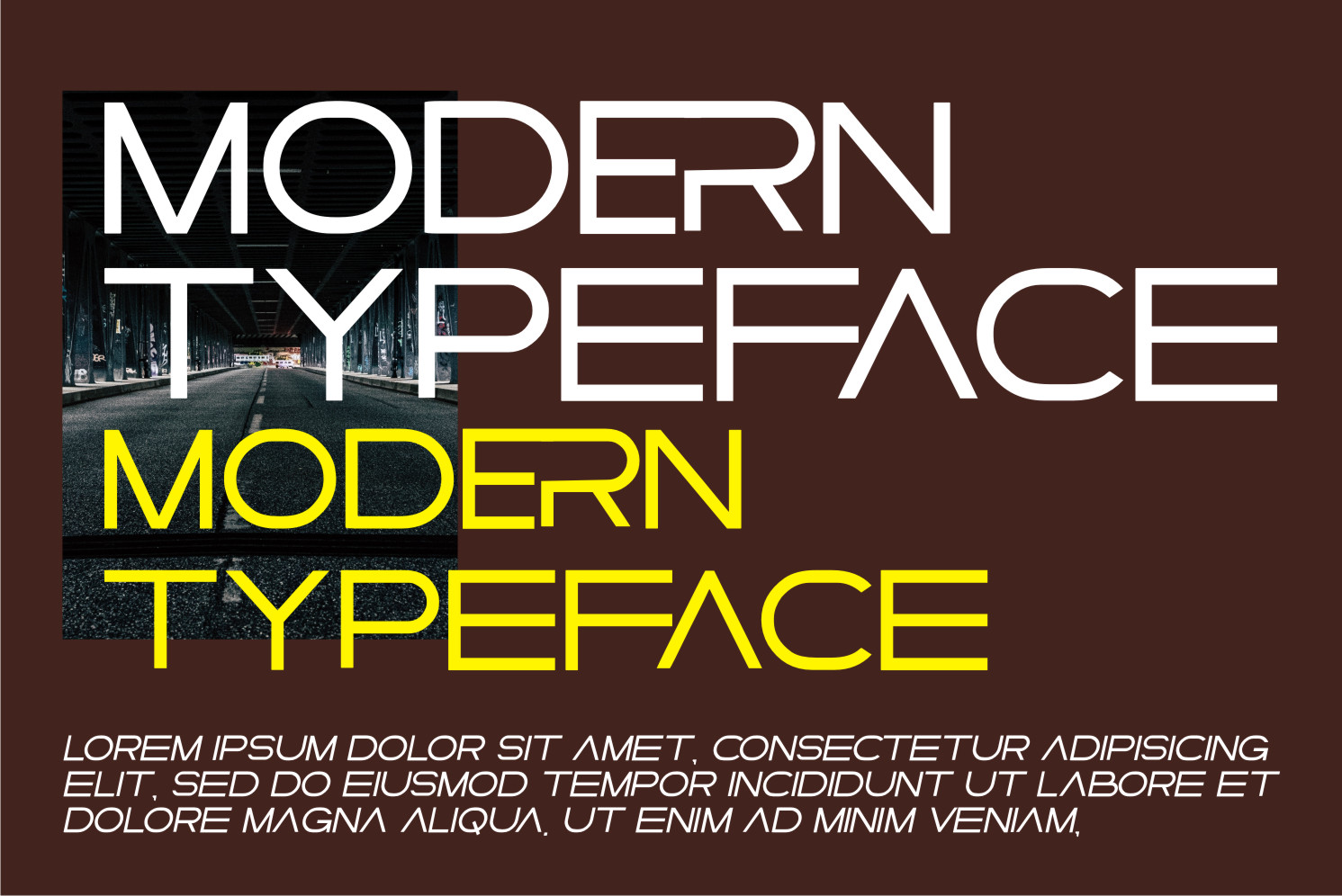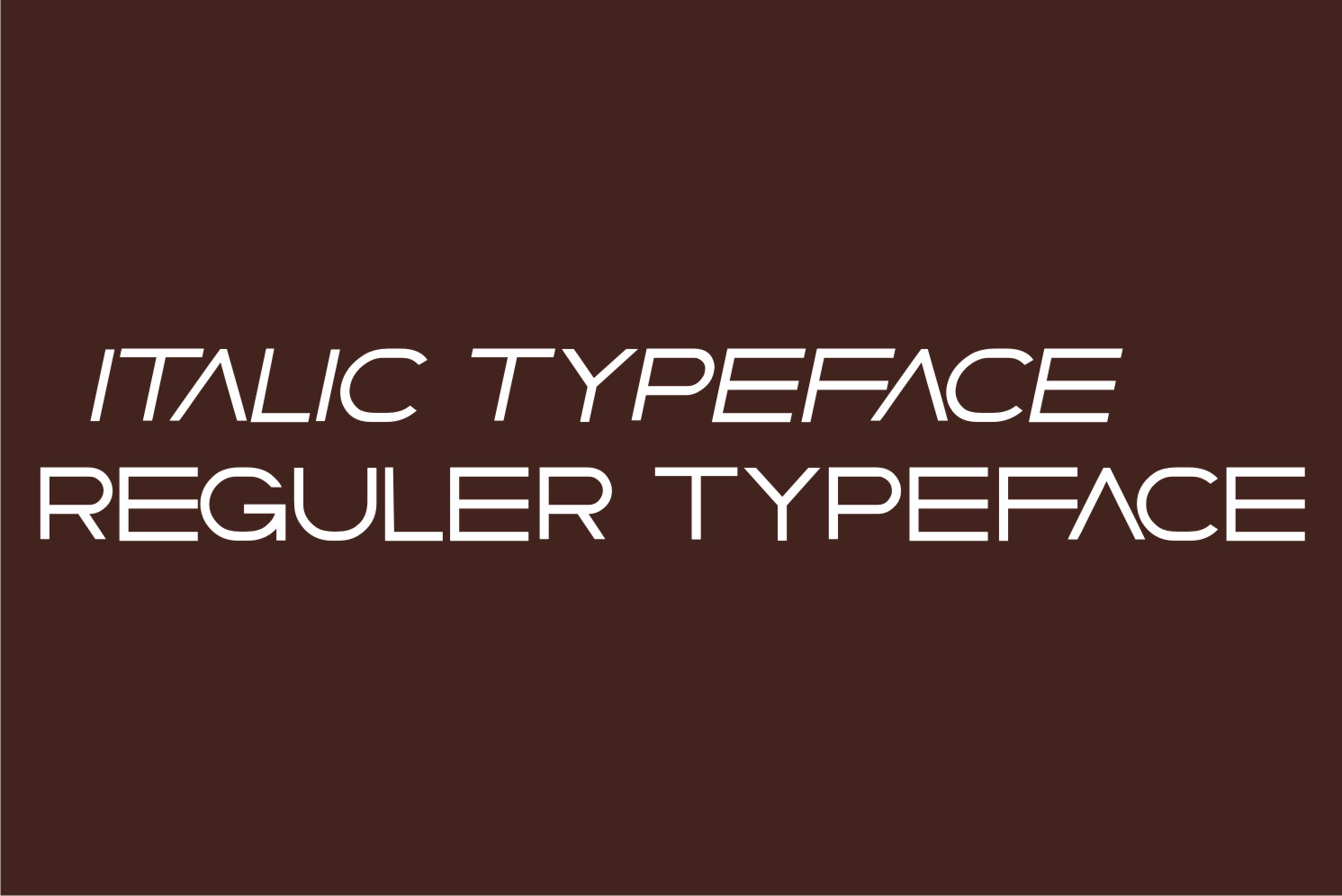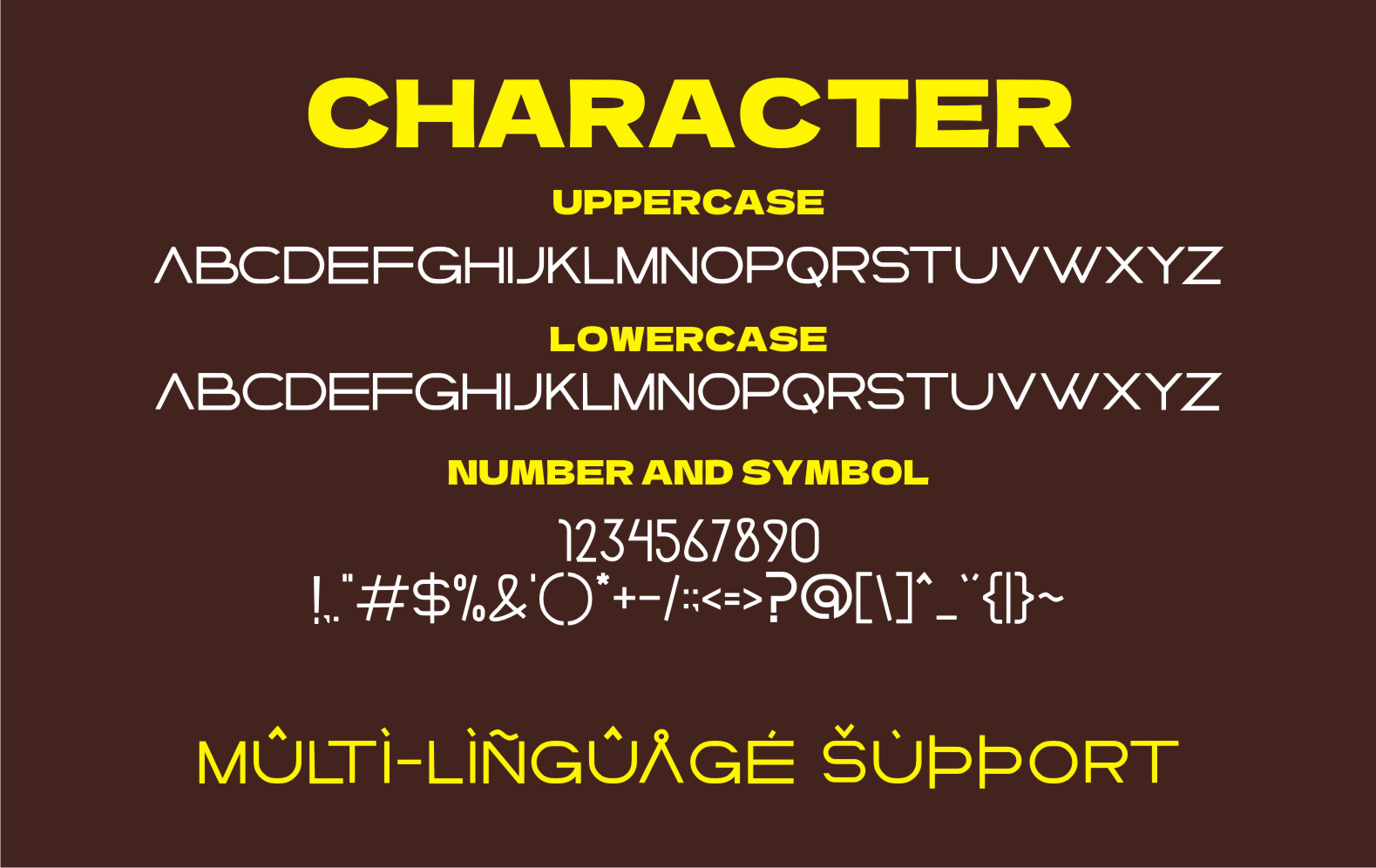
Challtor Sans Serif Font
It’s a modern, clean and simple display font. This font is ideal for writing web designs, business cards, or pretty much anything else that requires a unique touch.